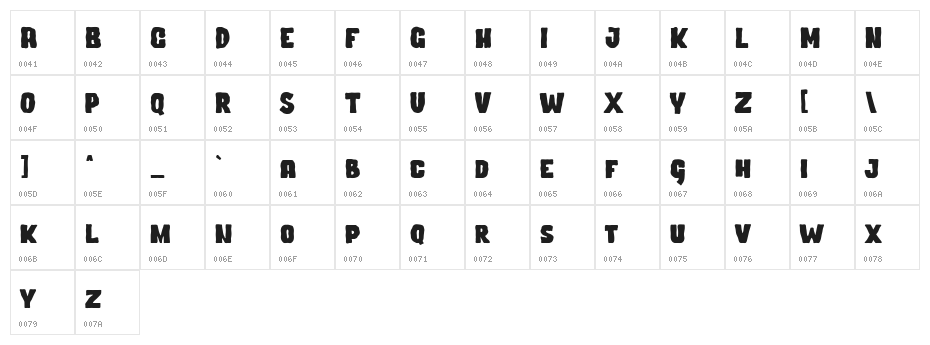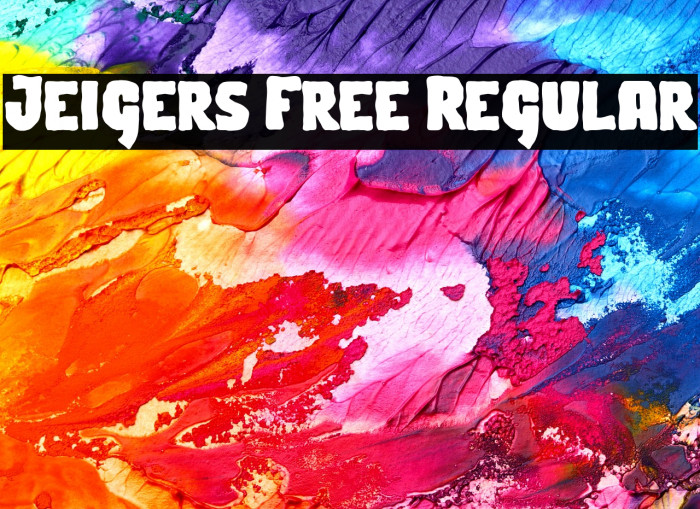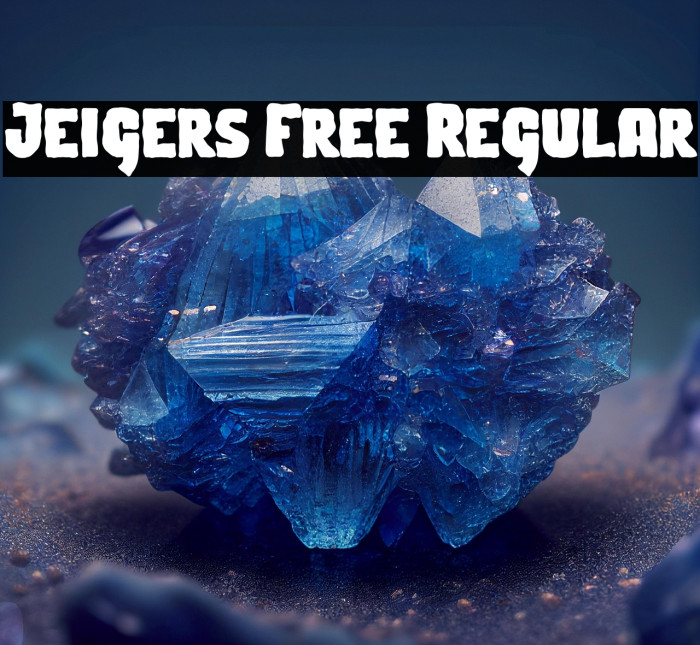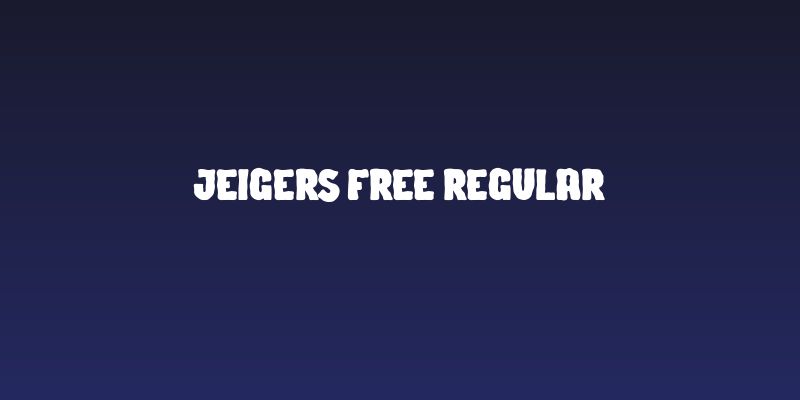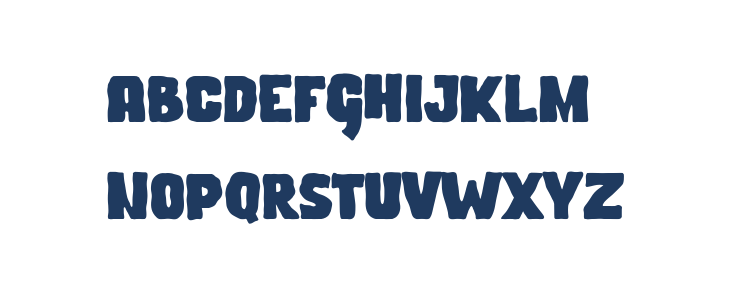
Jeigers Free Regular Font
Jeigers Free Regular Description
This font features a bold and playful design with thick, uneven strokes that give it a hand-drawn appearance. The characters are robust and slightly irregular, adding a whimsical and dynamic feel. The uppercase letters are particularly striking, with a strong presence that commands attention. The font's style is reminiscent of vintage poster typography, making it ideal for projects that require a touch of nostalgia or a bold statement. Its unique character shapes and heavy weight make it stand out, while the slightly rough edges add to its charm.
| Proposed Projects | Ideal for vintage posters, playful branding, children's book covers, and creative advertising. |